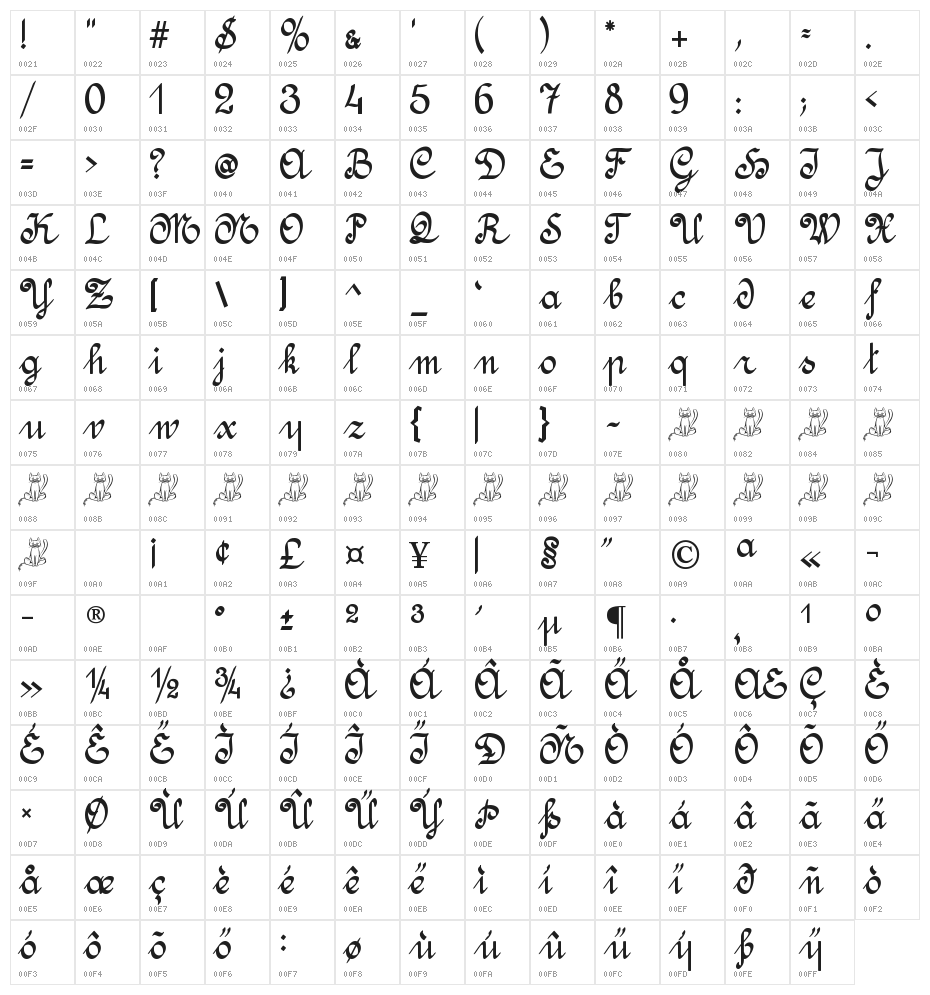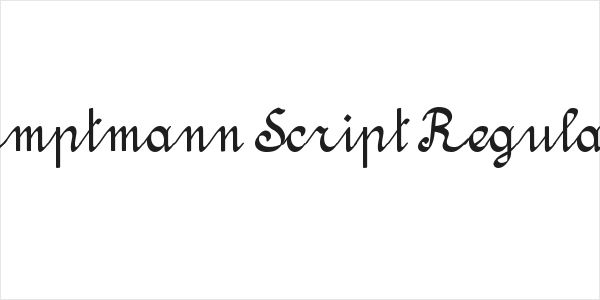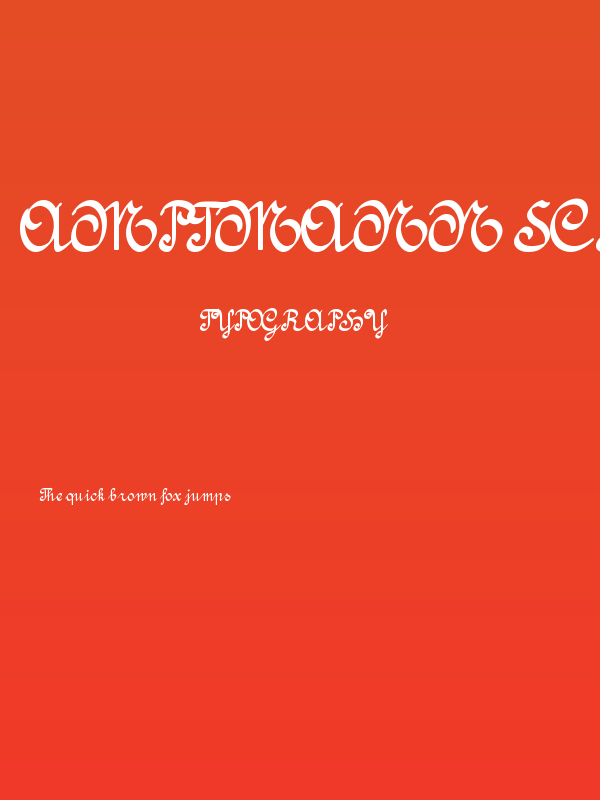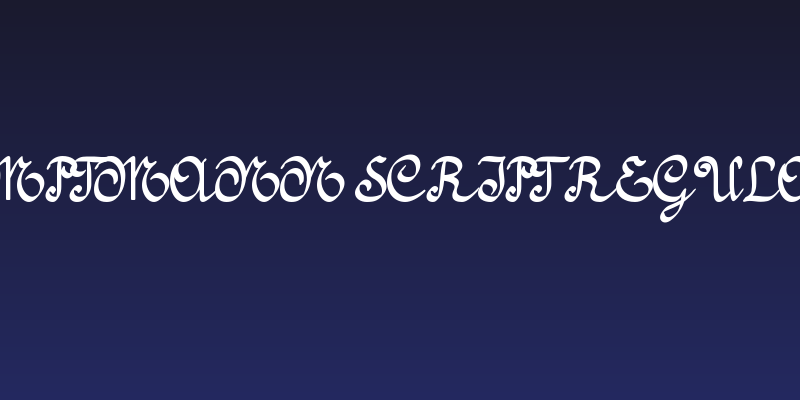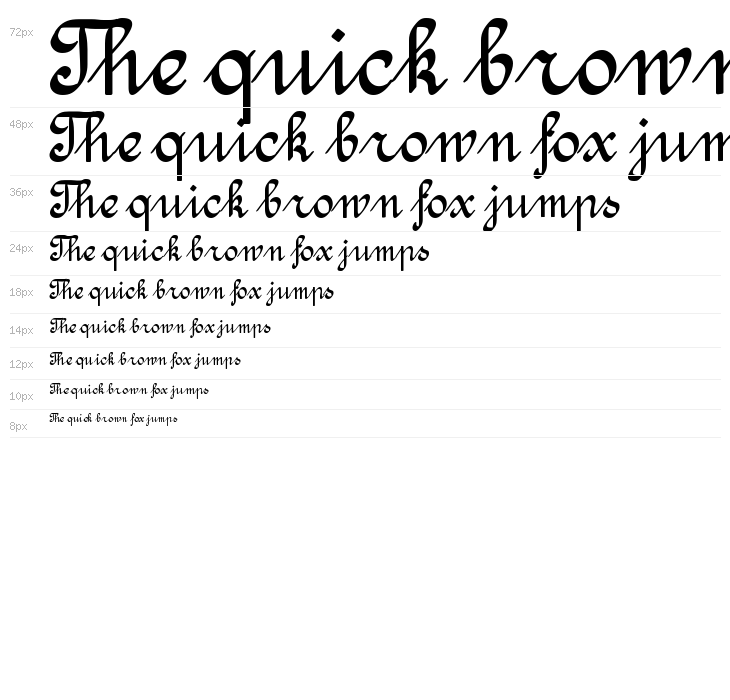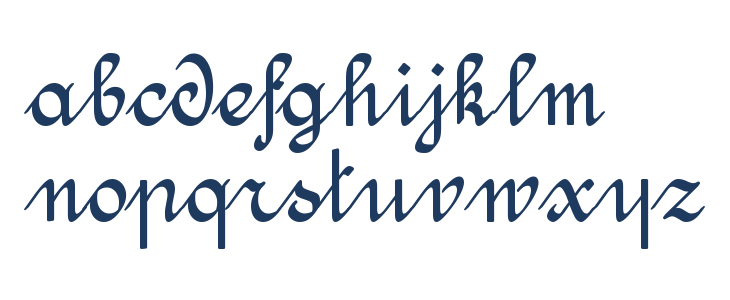
Amptmann Script Regular Font
Amptmann Script Regular Description
This font features a dynamic and flowing script style, characterized by its elegant curves and fluid strokes. The uppercase letters exhibit a bold presence with intricate loops and swashes, while the lowercase letters maintain a consistent rhythm, enhancing readability. The numerals are distinct and stylish, complementing the overall aesthetic. Special characters are thoughtfully designed, adding to the font's versatility. The font's artistic flair makes it suitable for creative projects that require a touch of sophistication and charm.